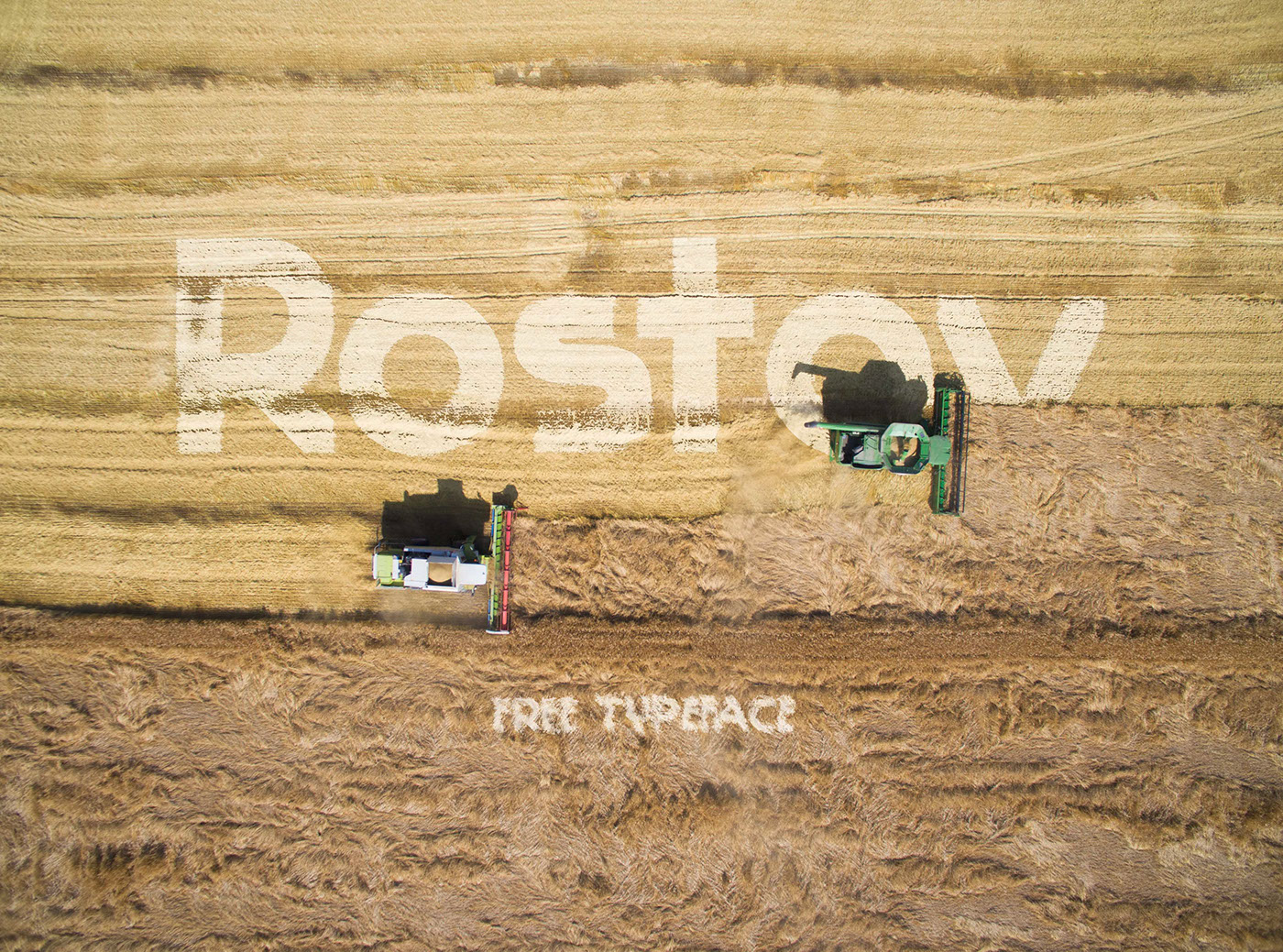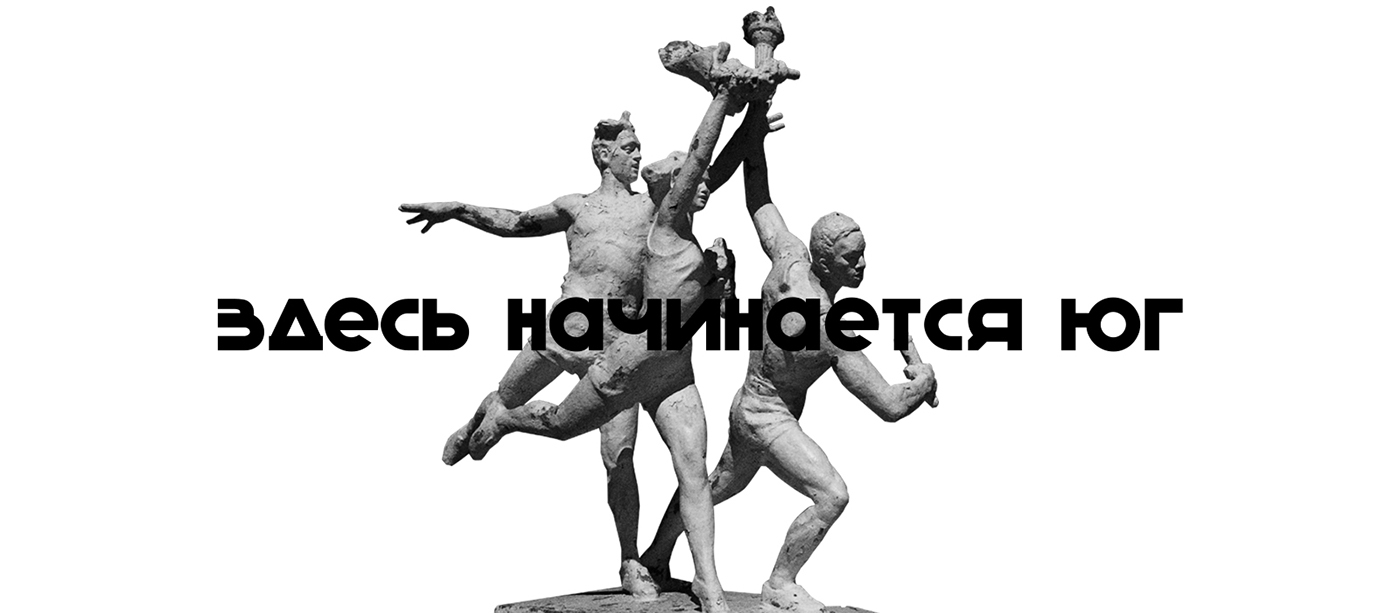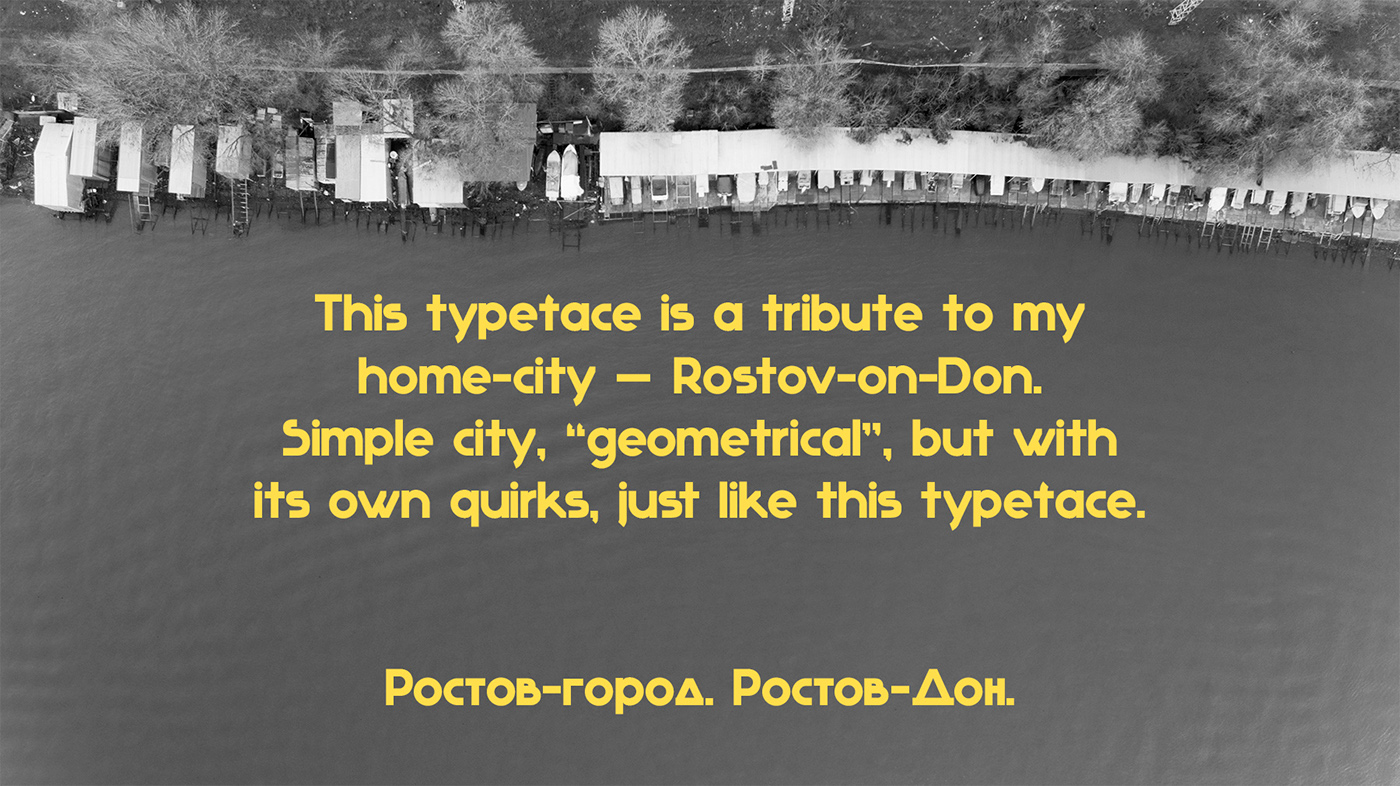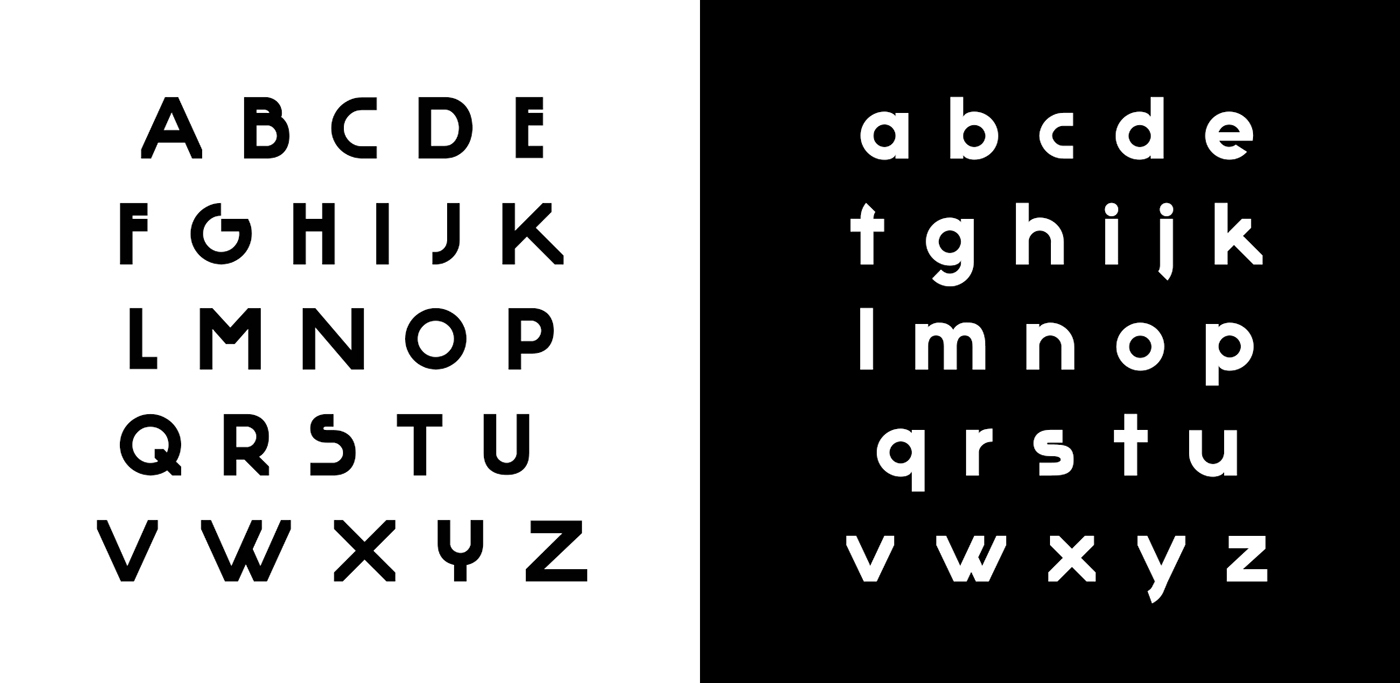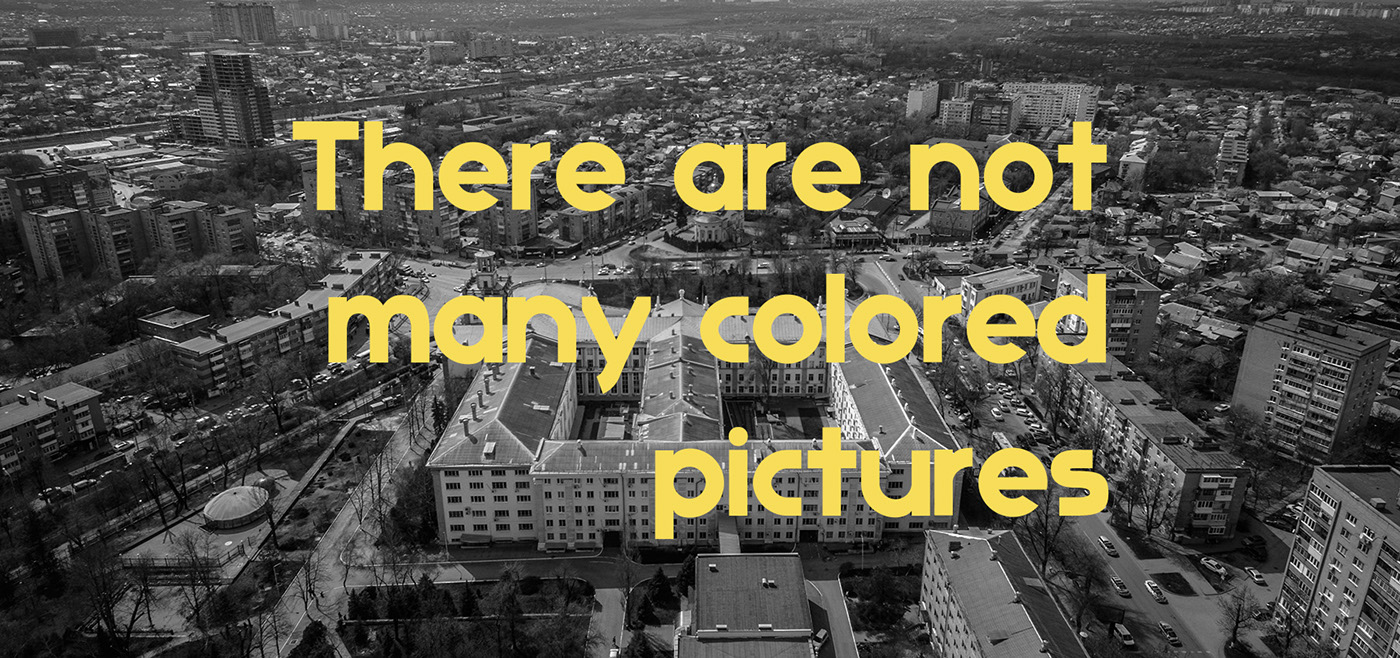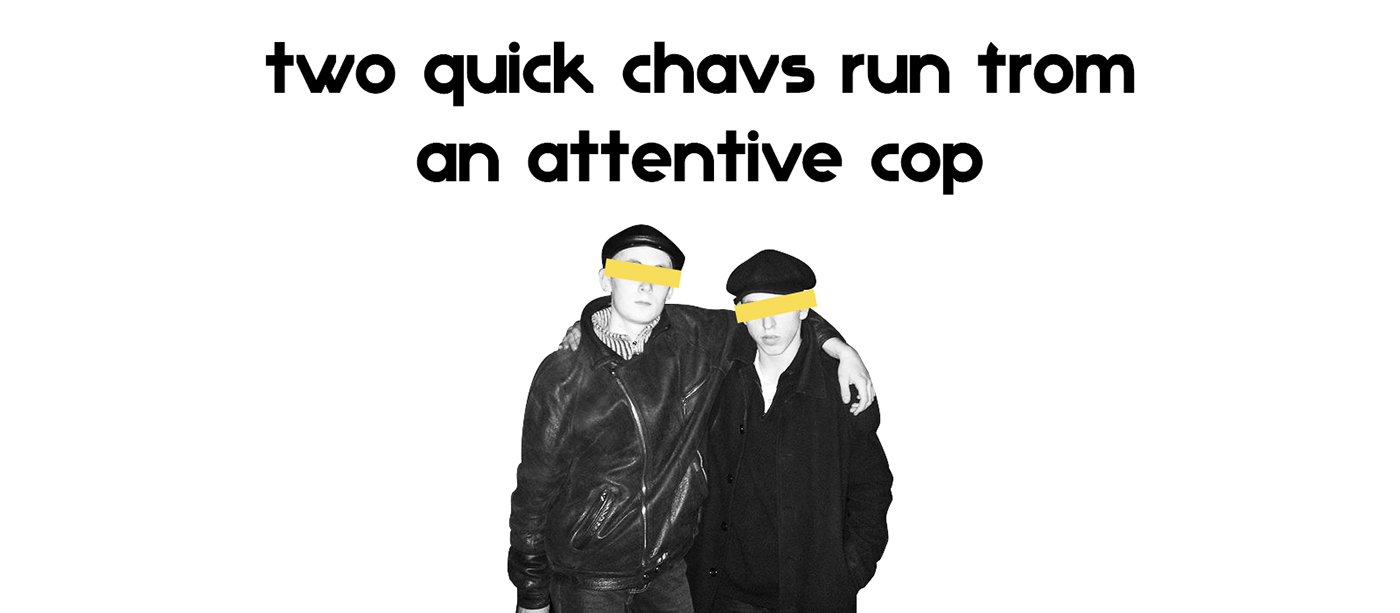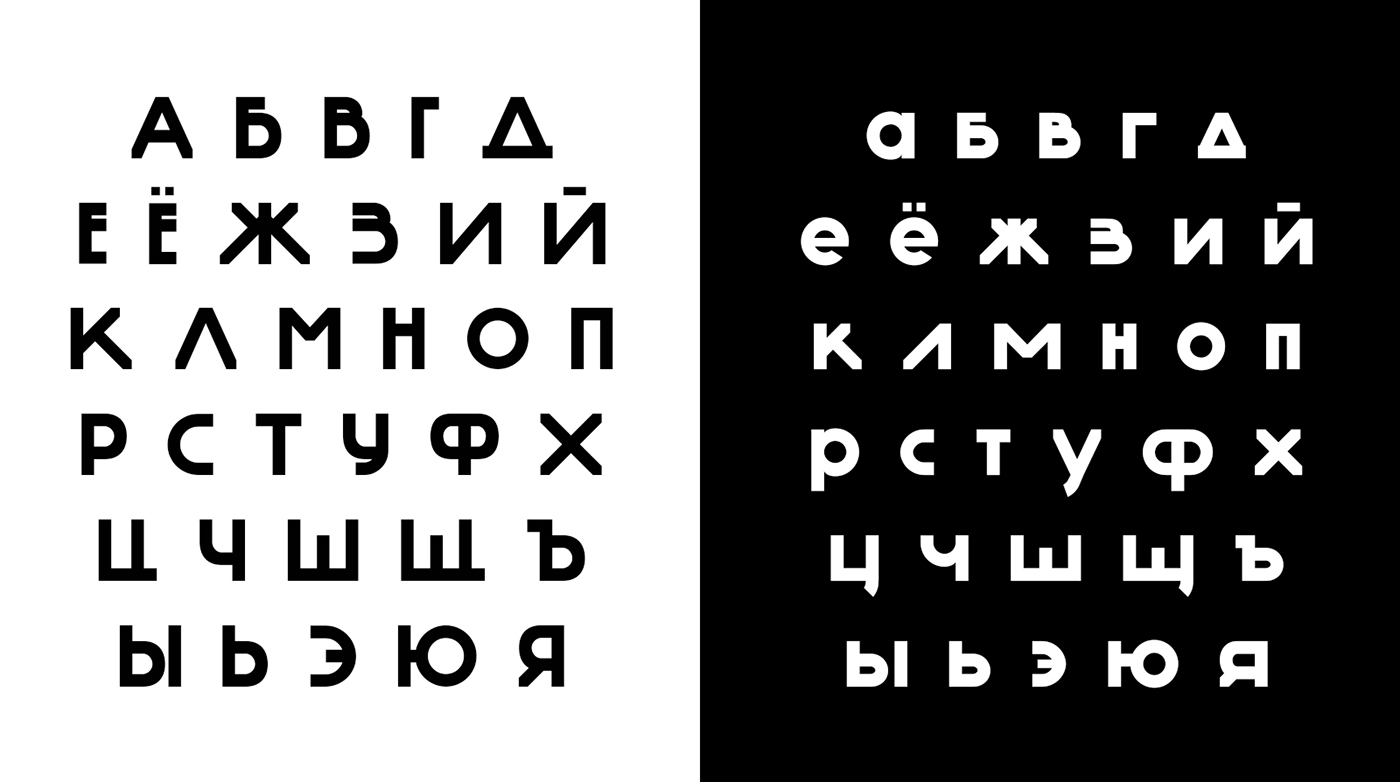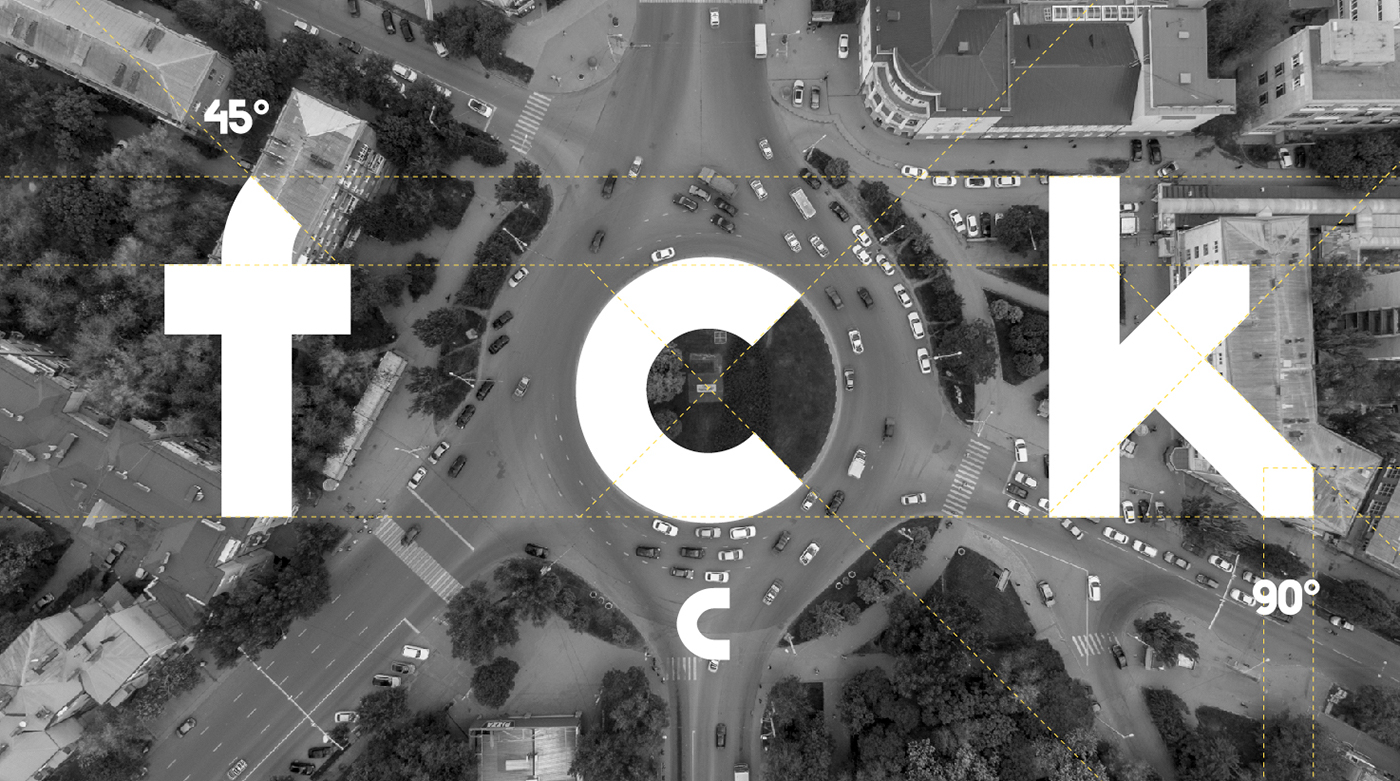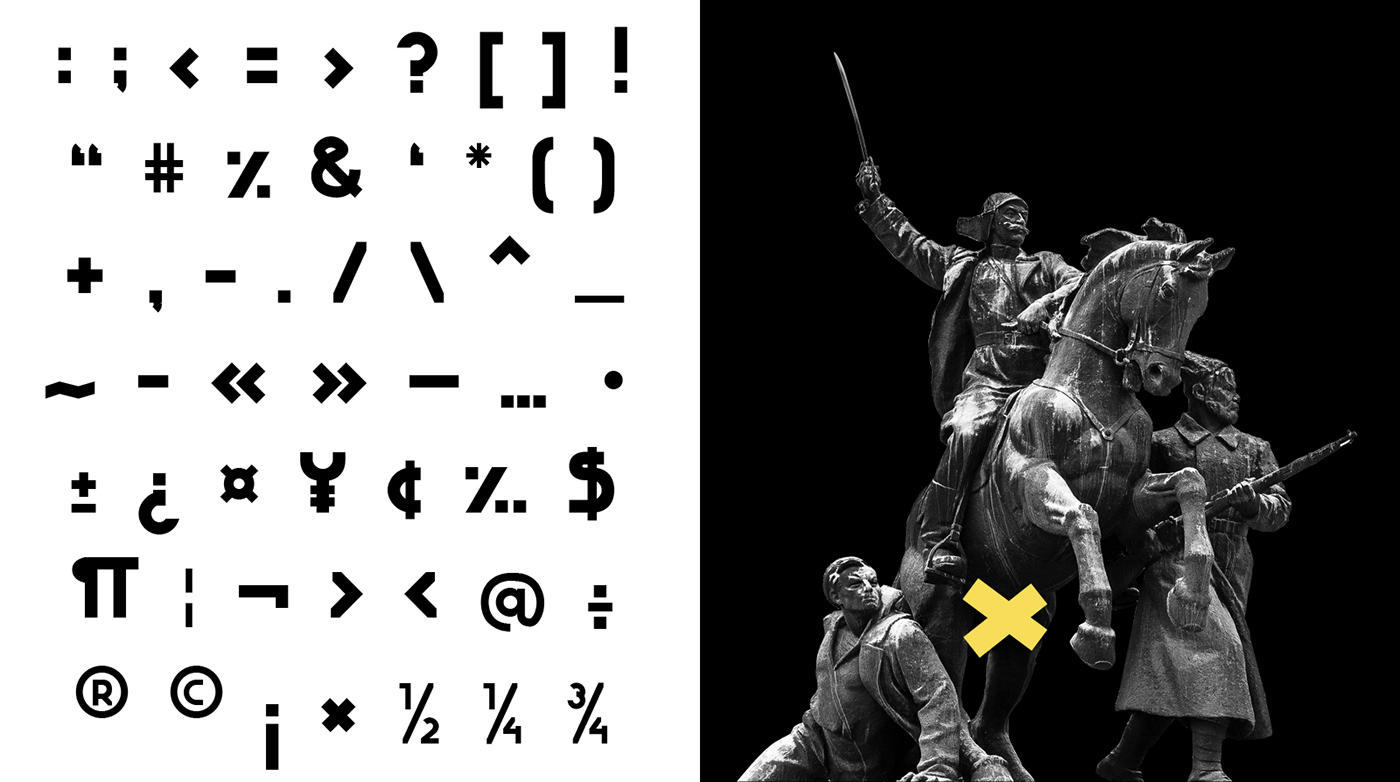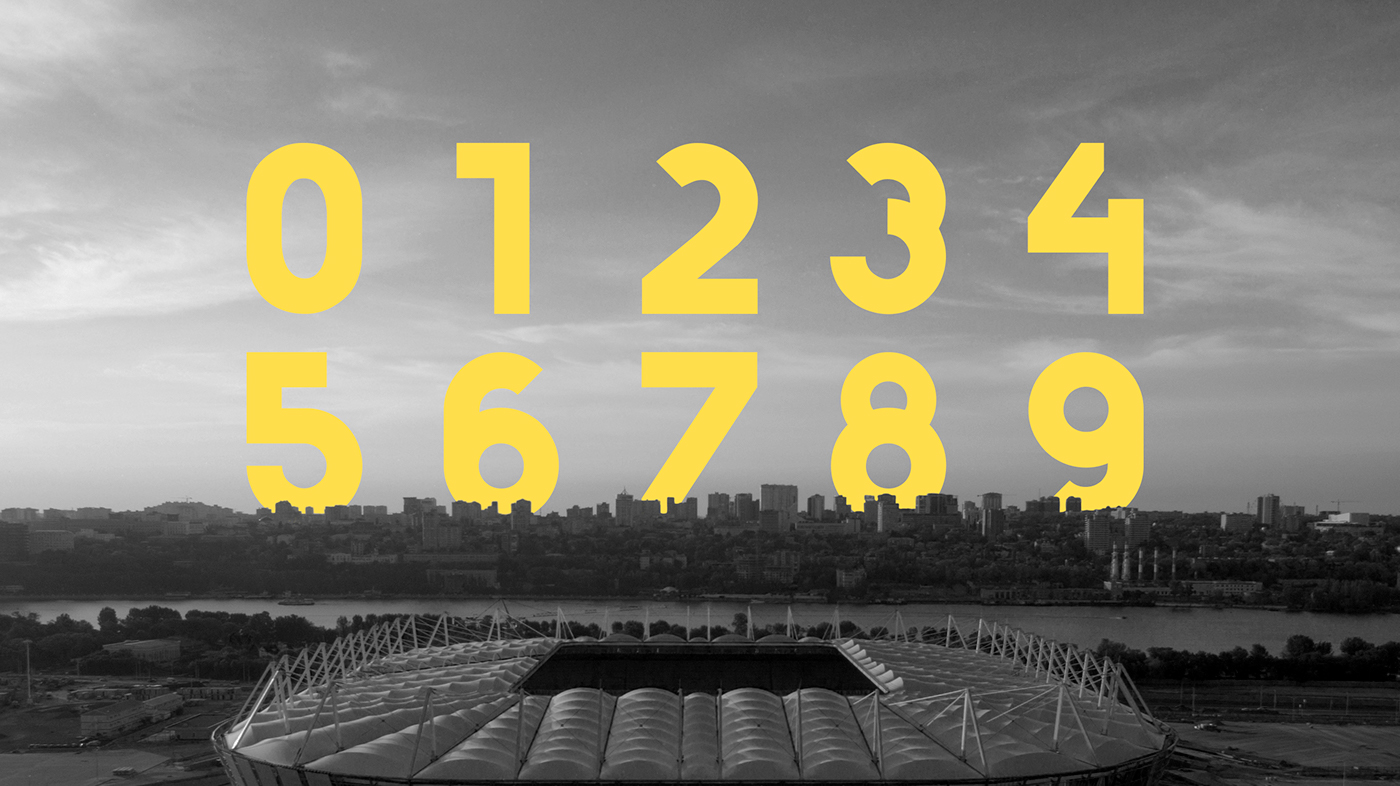
Rostov Typeface is a tribute to Rostov-on-Don, the home-city of Andy Usikov. Andy describes Rostov as a simple city, “geometrical”, but with its own quirks, just like the typeface he created. Rostov is absolutely free for personal and commercial use.